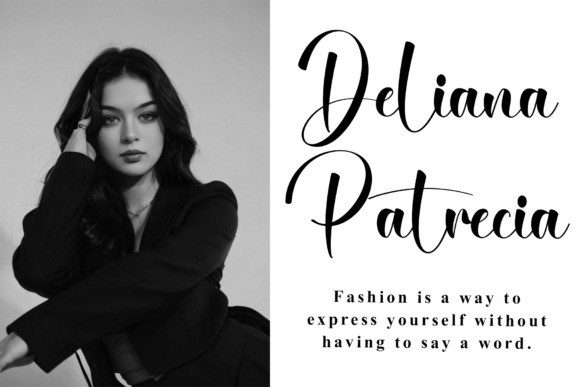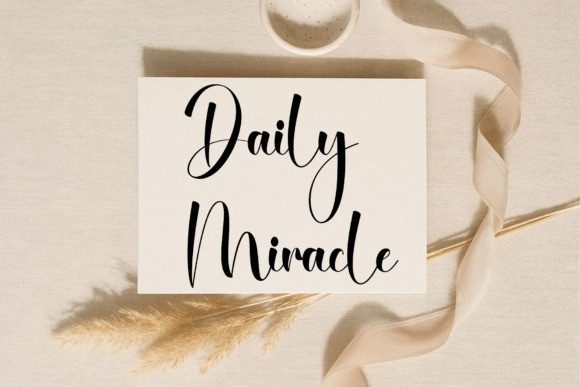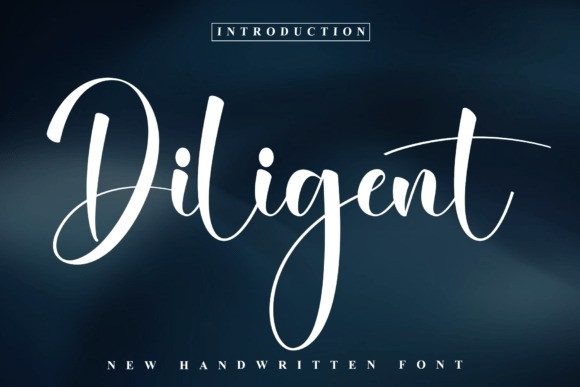
Diligent Script Type
Diligent Script Type is a luxurious and flowing handwritten script font that exudes elegance, confidence, and professionalism. With its smooth curves, high-contrast strokes, and graceful swashes, this typeface is perfect for upscale branding, wedding invitations, beauty packaging, and signature-style logos. It strikes the perfect balance between modern sophistication and handwritten charm.
Whether you’re crafting a high-end visual identity or looking to add refinement to your design, Diligent delivers with poise and personality.